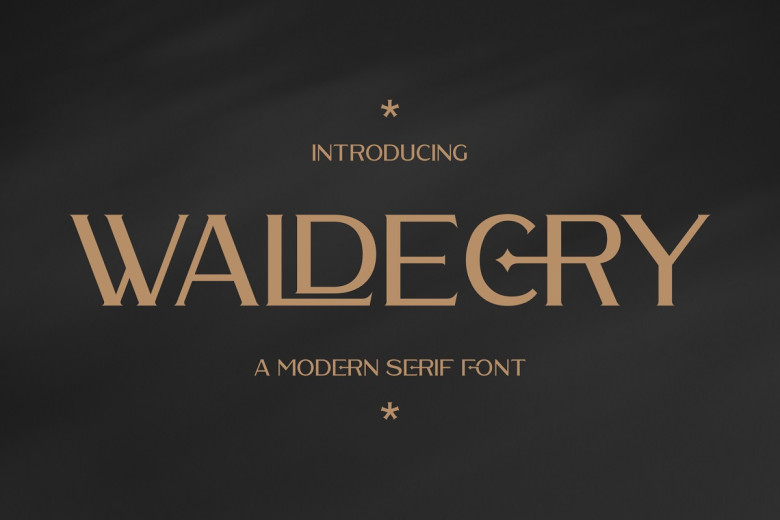
Waldecry Font
Waldecry is an elegant and modern serif font ideal for logos and designs of luxury brands, books or movie titles, magazines, clothing, lettering and quotes.
Waldecry Serif Font